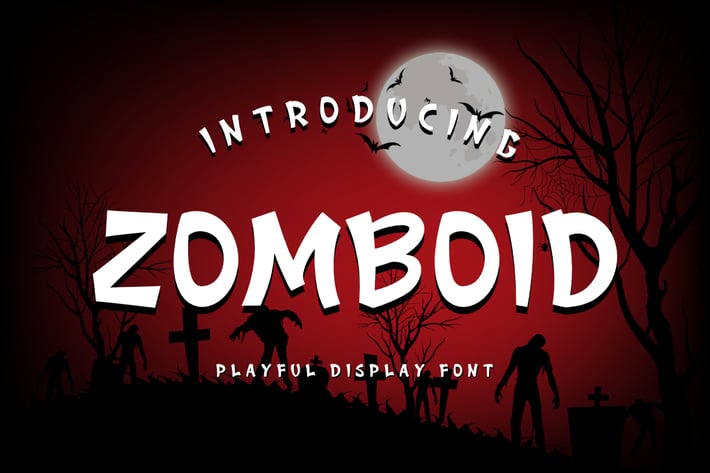
Zomboid - Playful & Horror Font
Zomboid Playful and Horror Font, inspired by playful style with a horror theme. This font is made with a high premium quality level which you can use as flyers, quotes, posters, banners, packaging, merchandise, logotypes and much more.